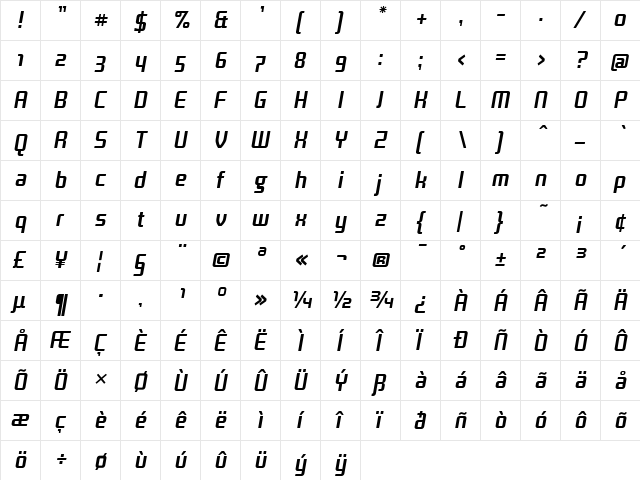
Titan Bold Italic
Design Context for Titan Typeface
Titan offers clean, dependable letterforms without strong stylistic allegiance, making it a practical choice for designers who need flexibility. The dynamic lean of this cut emphasises speed and emphasis in any layout. The heavy weight commands attention and anchors typographic hierarchies.
Pro Tip: Use Titan for emphasis, pull quotes, and subheadings where its slanted energy can add rhythm to the layout.